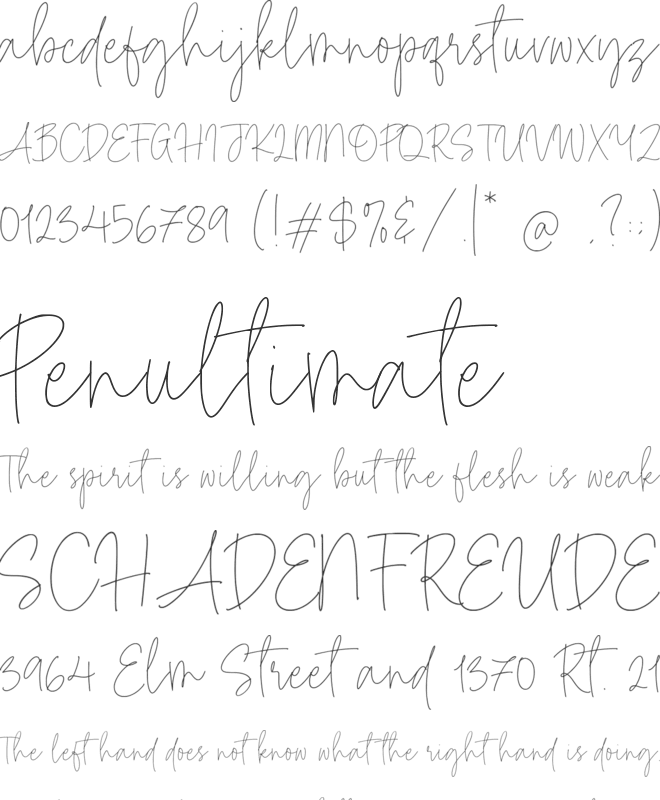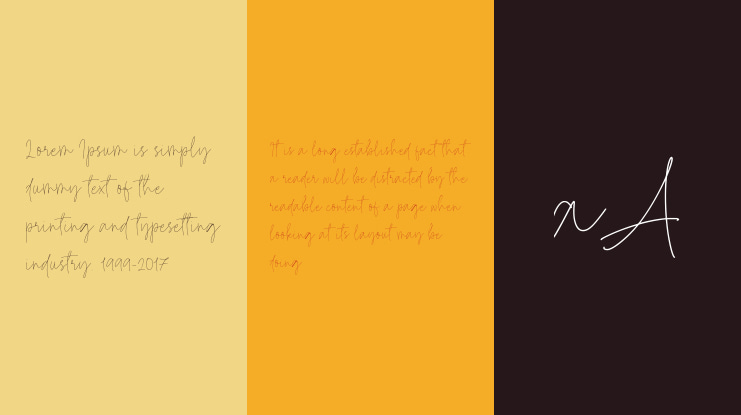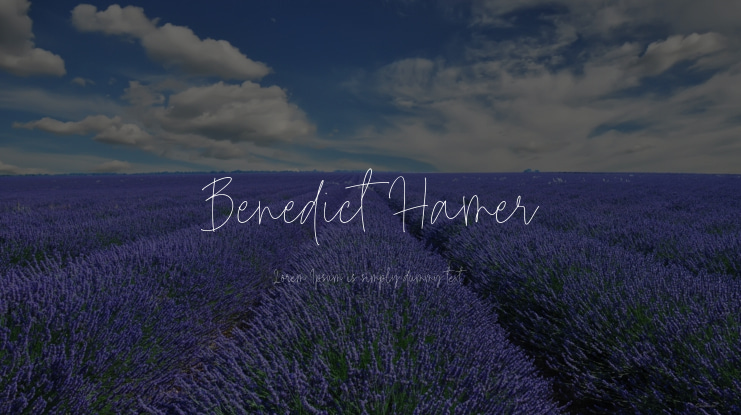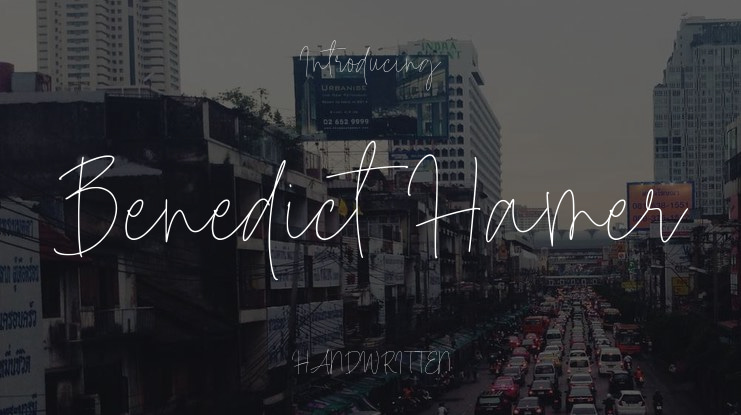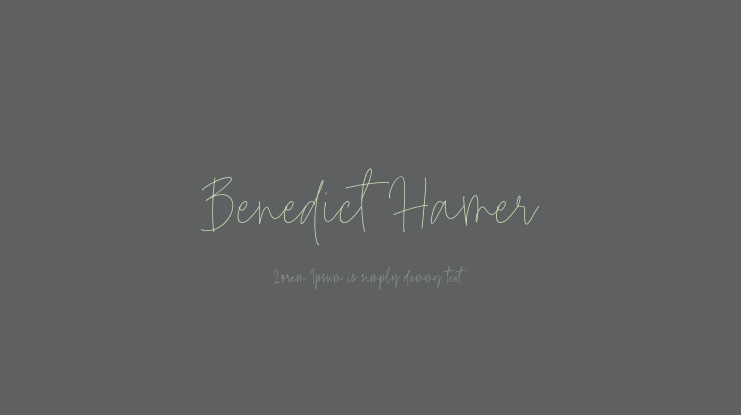
Benedict Hamer Font
Benedict Hamer is a hand-crafted script font that embodies modern design with its sleek lines and graceful style. Its monoline feature gives a minimalist flair to this meticulously designed font, making it a versatile choice to enhance any design project. This font package includes TTF, OTF, and WOFF formats along with multilingual support. We hope you enjoy using this font and welcome any comments or feedback. Thank you for your support!